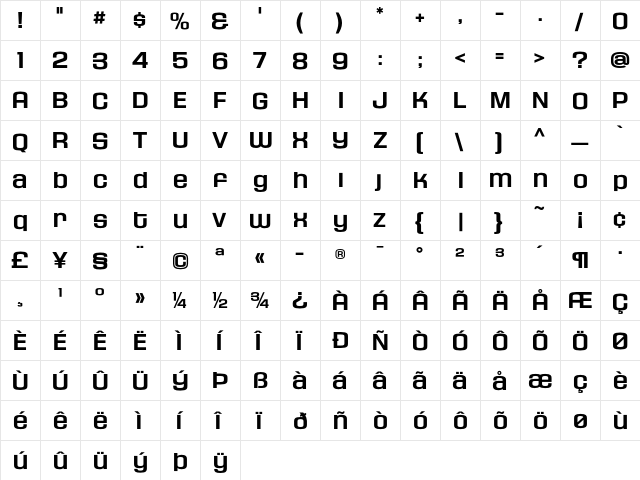
HouseGothicHG23Ext BOLD2
| Designer | Allen Mercer/Tal Leming |
Design Context for HouseGothicHG23Ext Typeface
HouseGothicHG23Ext has the quiet confidence of well-executed sans-serif typography: versatile, unobtrusive, and dependable at any size. The heavy weight commands attention and anchors typographic hierarchies.
Well-suited to navigation labels, product packaging, and anywhere legibility at scale is essential.
Font Pairing: Use HouseGothicHG23Ext for headlines alongside a lighter-weight sans or serif for body copy to establish clear visual hierarchy.
Pro Tip: Use HouseGothicHG23Ext for UI labels, navigation, and short-form body copy where clean legibility is the priority.